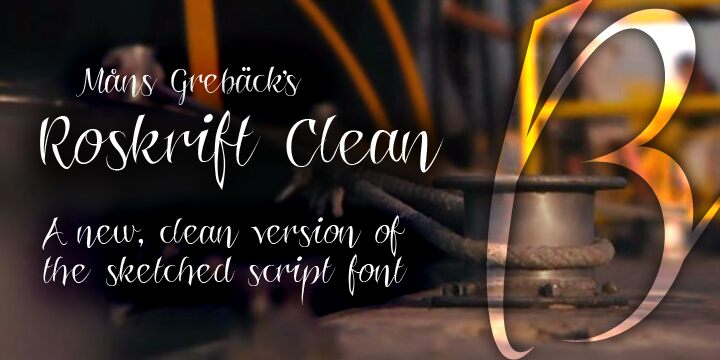
Roskrift Clean by Måns Grebäck is a free calligraphic script with towering, tightly drawn letters and dramatic changes from hairline strokes to broad, ink-dark curves. Long entry and exit strokes sweep across neighboring forms, giving the lettering a fashion-forward signature quality.
Luxury and beauty audiences are the clearest match for its poised, theatrical style. It can shape perfume packaging, fashion branding, and wedding stationery. Across these uses, the exaggerated height and sweeping connections turn a name or message into a decorative centerpiece.